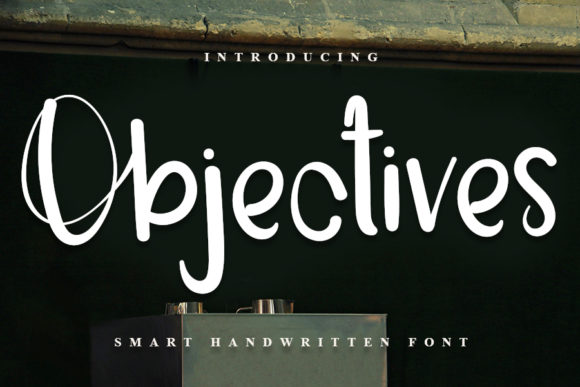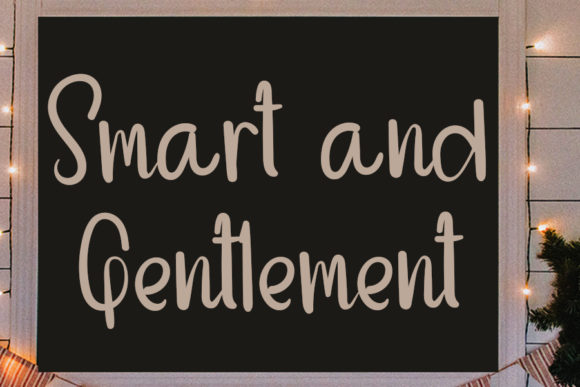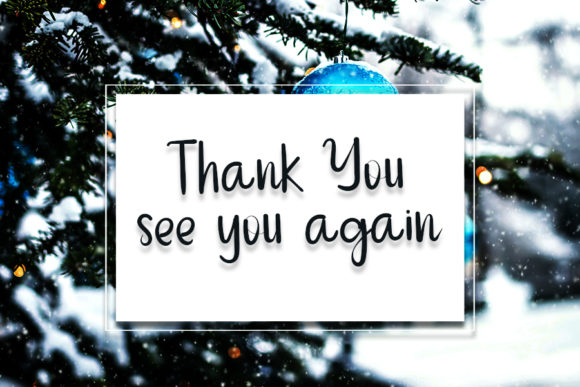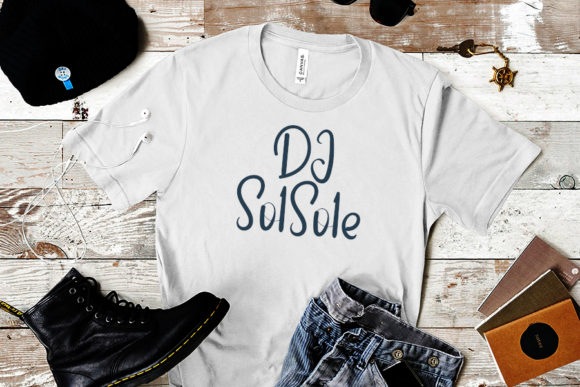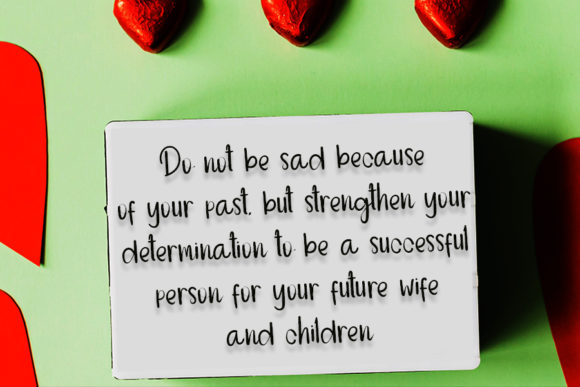
Objectives Font
About Objectives Font
Objectives is a beautiful, quirky and friendly handwritten font. Suitable to a wide variety of designs due to its neat and simple style, Objectives has the potential to become your favorite go-to font, no matter the occasion!